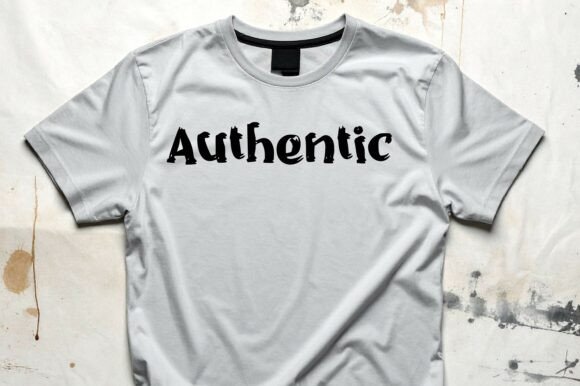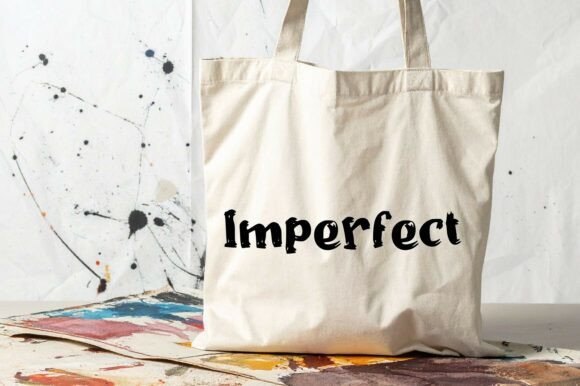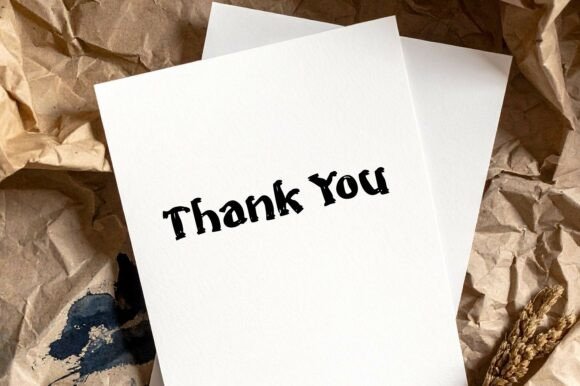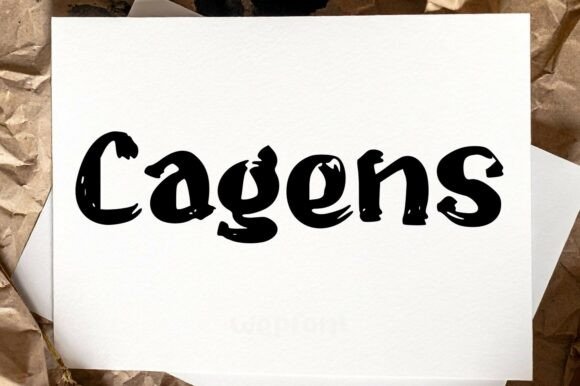
Discover the Charm of Cagens Font: A Handcrafted Gem for Designers
I’ll never forget the design project that led me to discover the Cagens Font. I was working on a branding project for a local artisan bakery, and I needed a font that would capture the warmth and authenticity of their handmade products. After hours of searching, I stumbled upon Cagens, and it was love at first sight. The unique texture, sturdy letter shapes, and cozy vibe instantly resonated with the bakery’s rustic-chic aesthetic.
What I Love About Cagens Font
- ✨ Unique texture: The handmade ambiance of Cagens is unparalleled, giving my designs a distinct, organic feel.
- ✅ Sturdy letter shapes: The font’s robust letterforms make it perfect for headlines, titles, and signage.
- 💕 Coziness and warmth: Cagens exudes a sense of comfort and approachability, ideal for crafting a brand’s narrative.
- 🔍 Standard punctuation symbols: The font includes a comprehensive set of punctuation marks, ensuring seamless transitions in my typographic endeavors.
While Cagens is an exceptional font, there are a few minor quirks to consider:
- ⚠️ No bold or italic variations: The font comes in a single style, which may limit its versatility in certain design scenarios.
The Story Behind Cagens Font
Cagens was designed by a passionate typographer who sought to create a font that would capture the essence of handmade artistry. Inspired by the rustic charm of rural landscapes and the imperfections of handcrafted goods, Cagens was meticulously etched by hand to convey a sense of sincerity and uniqueness.
Q: What makes Cagens Font unique?
A: Cagens’ unique texture, sturdy letter shapes, and cozy vibe set it apart from other fonts.